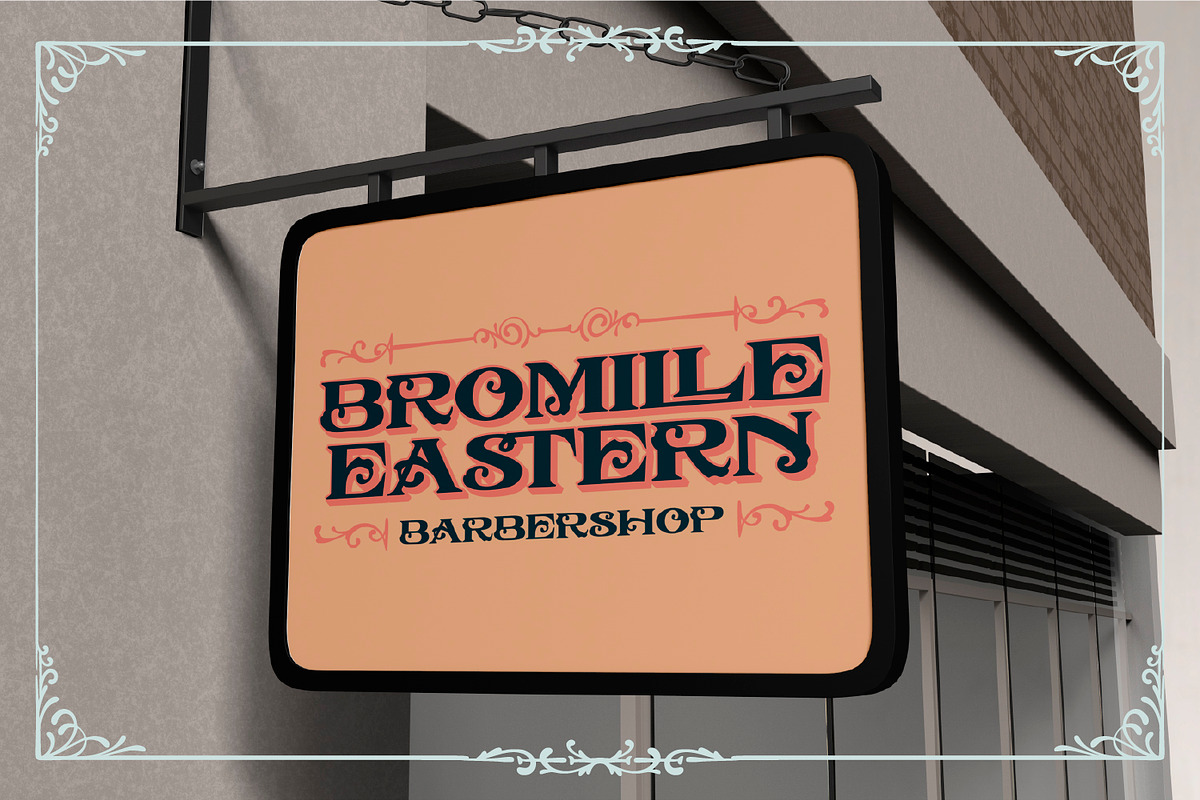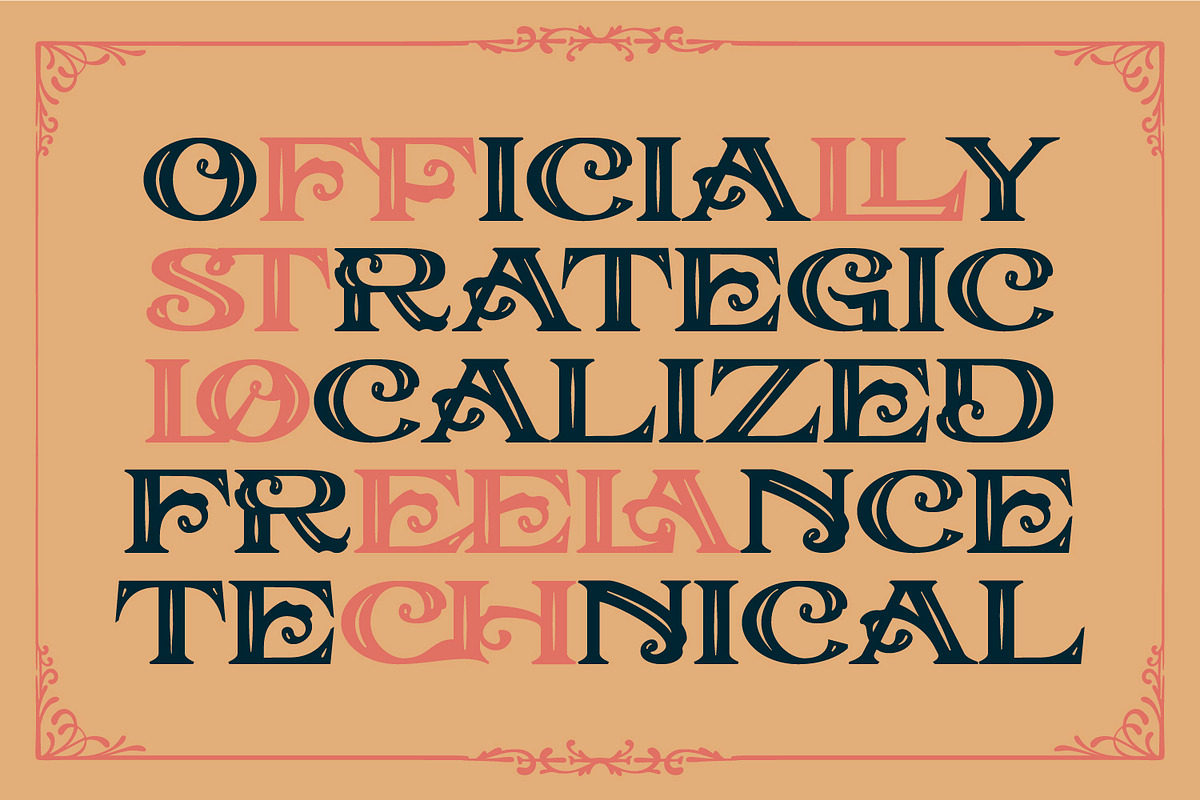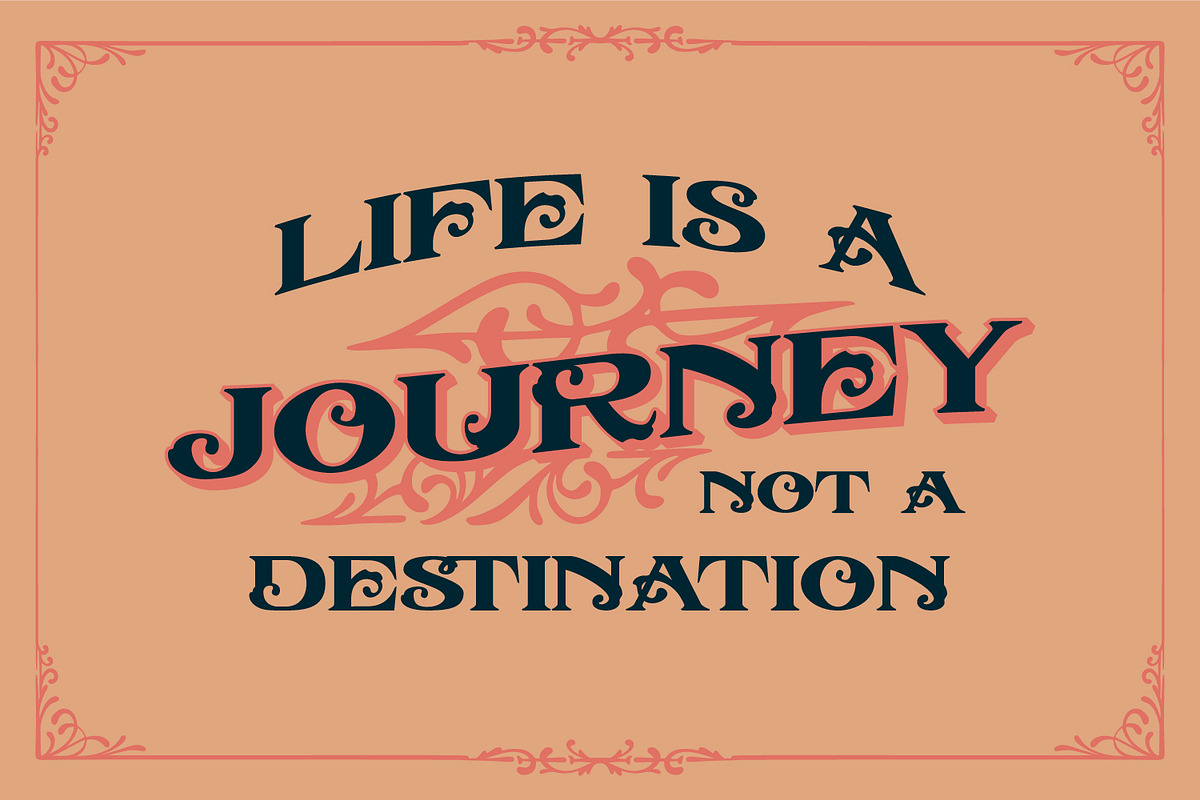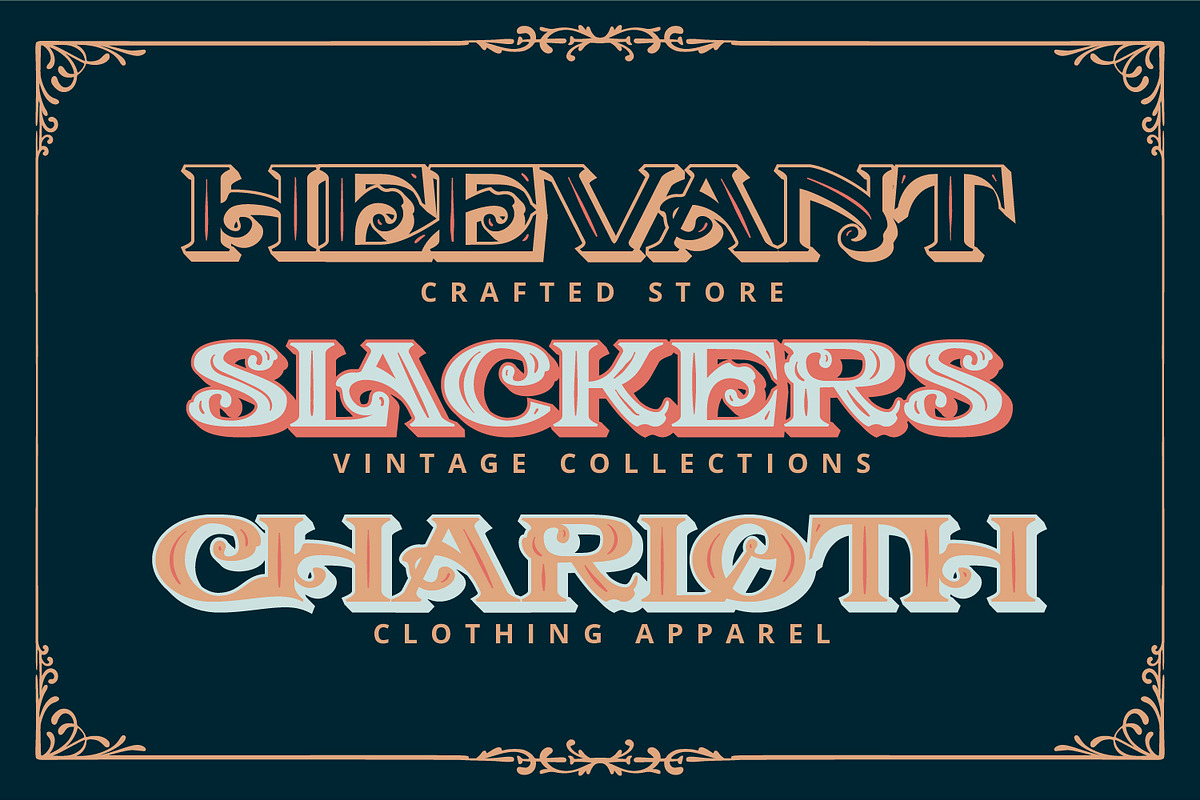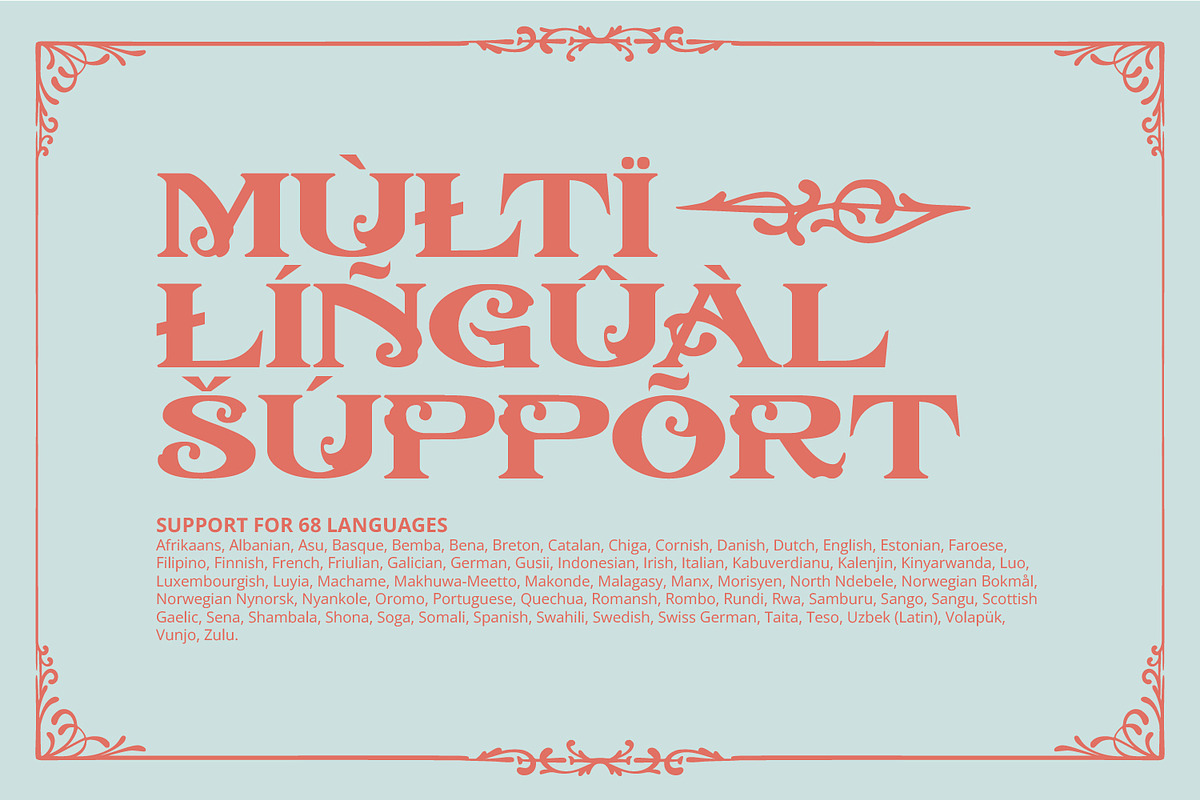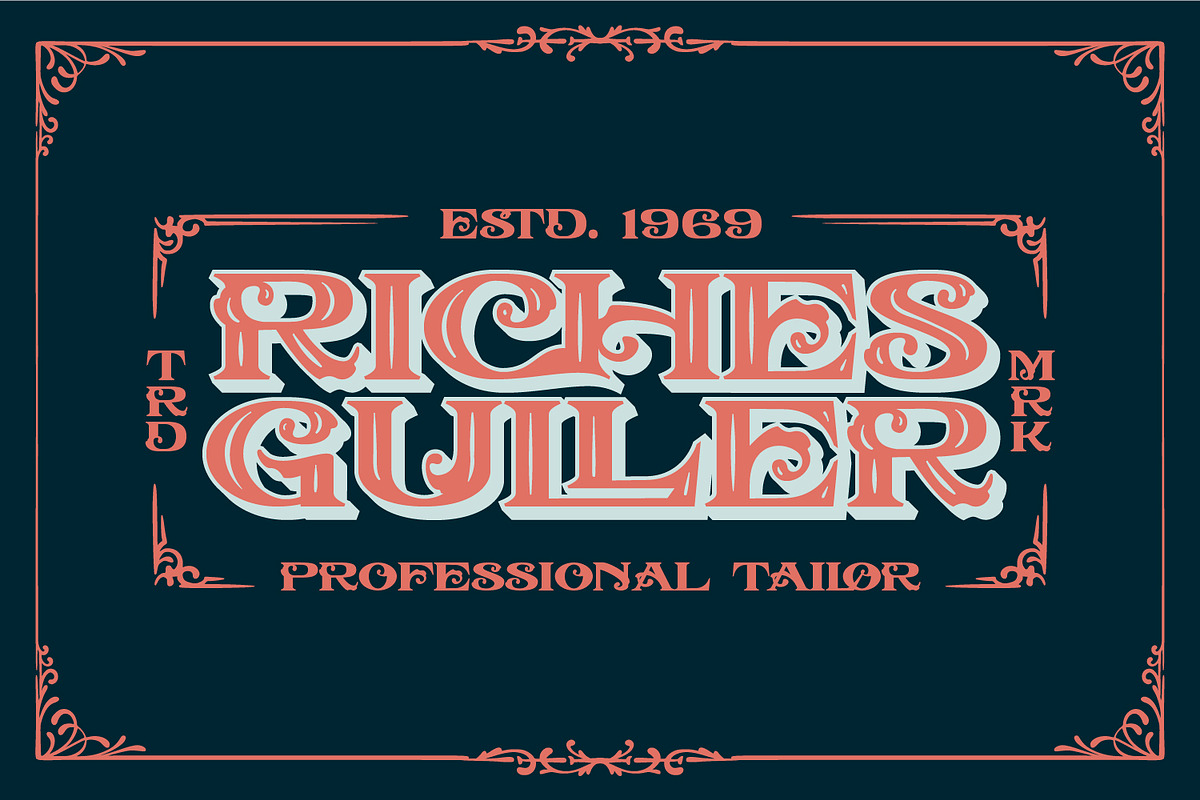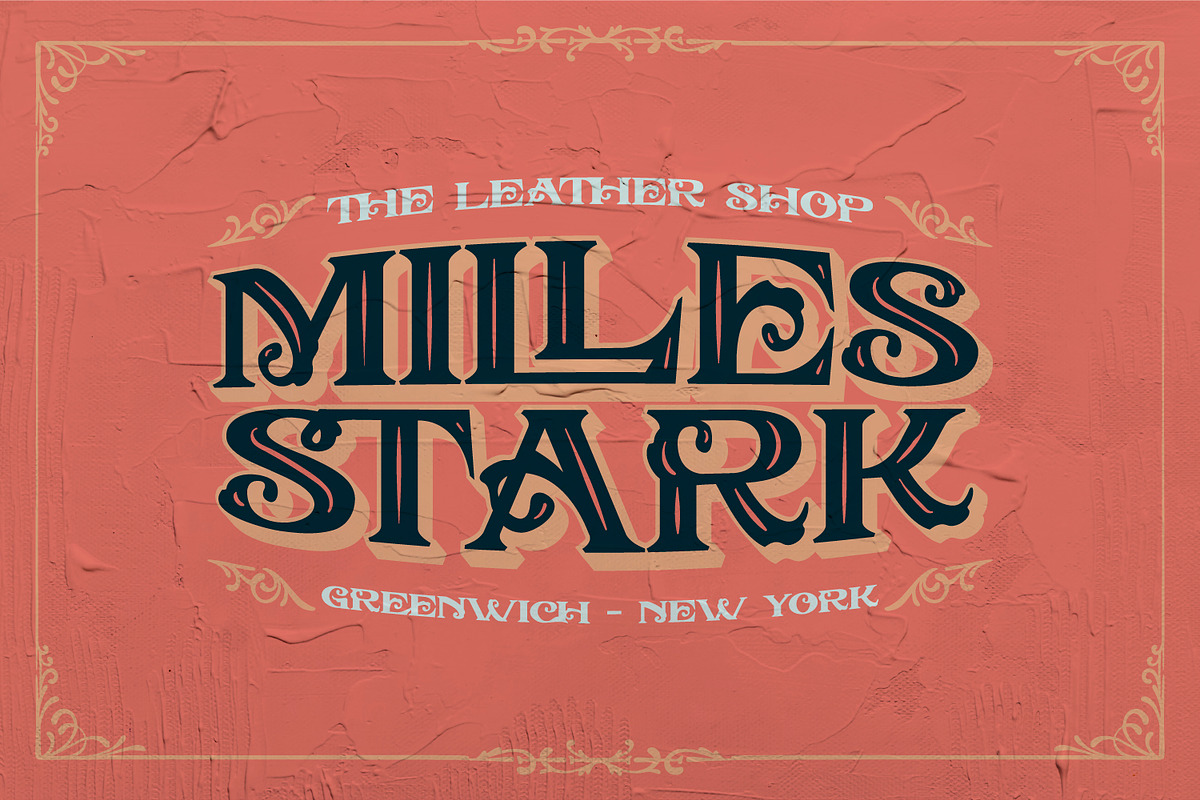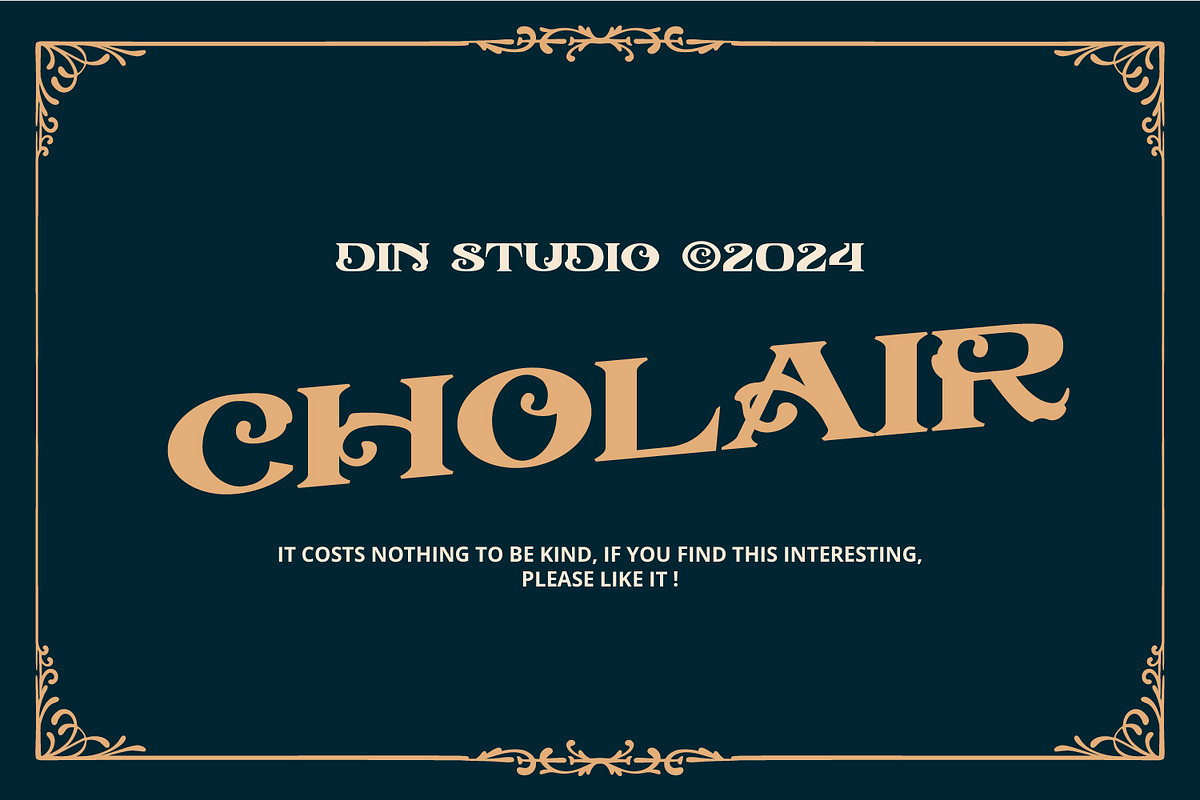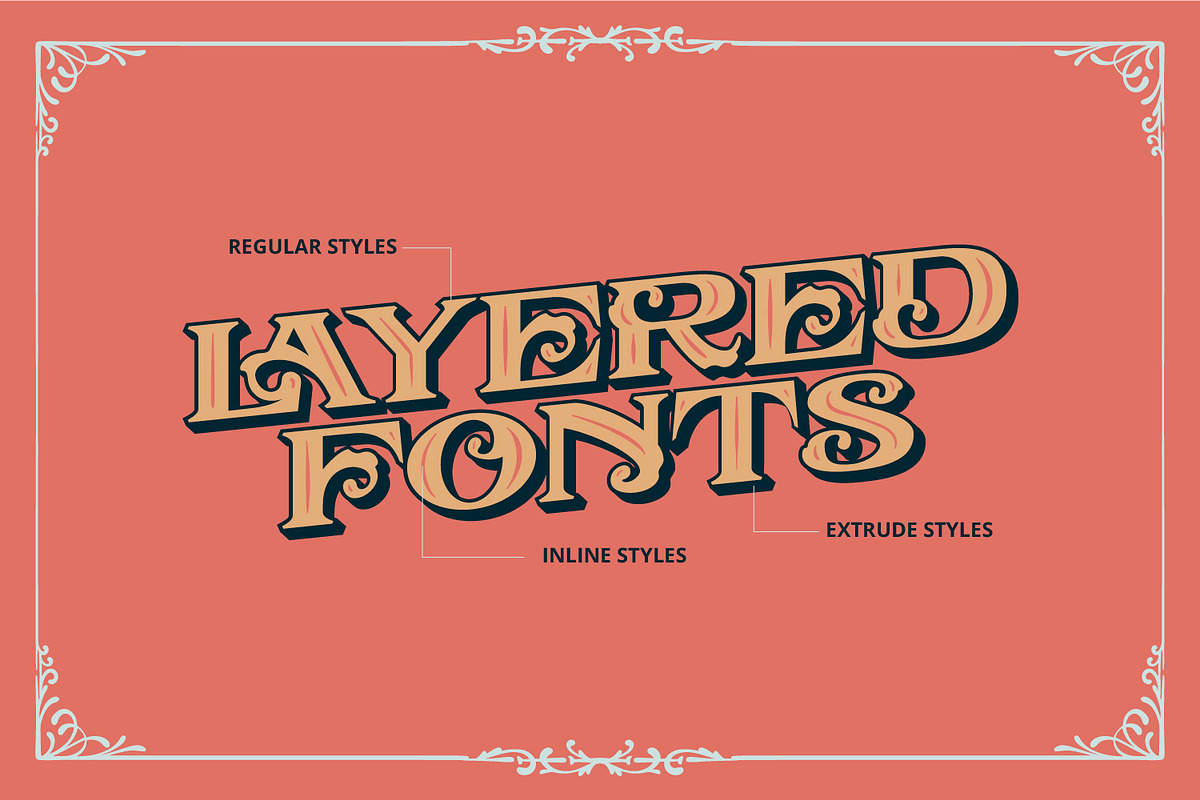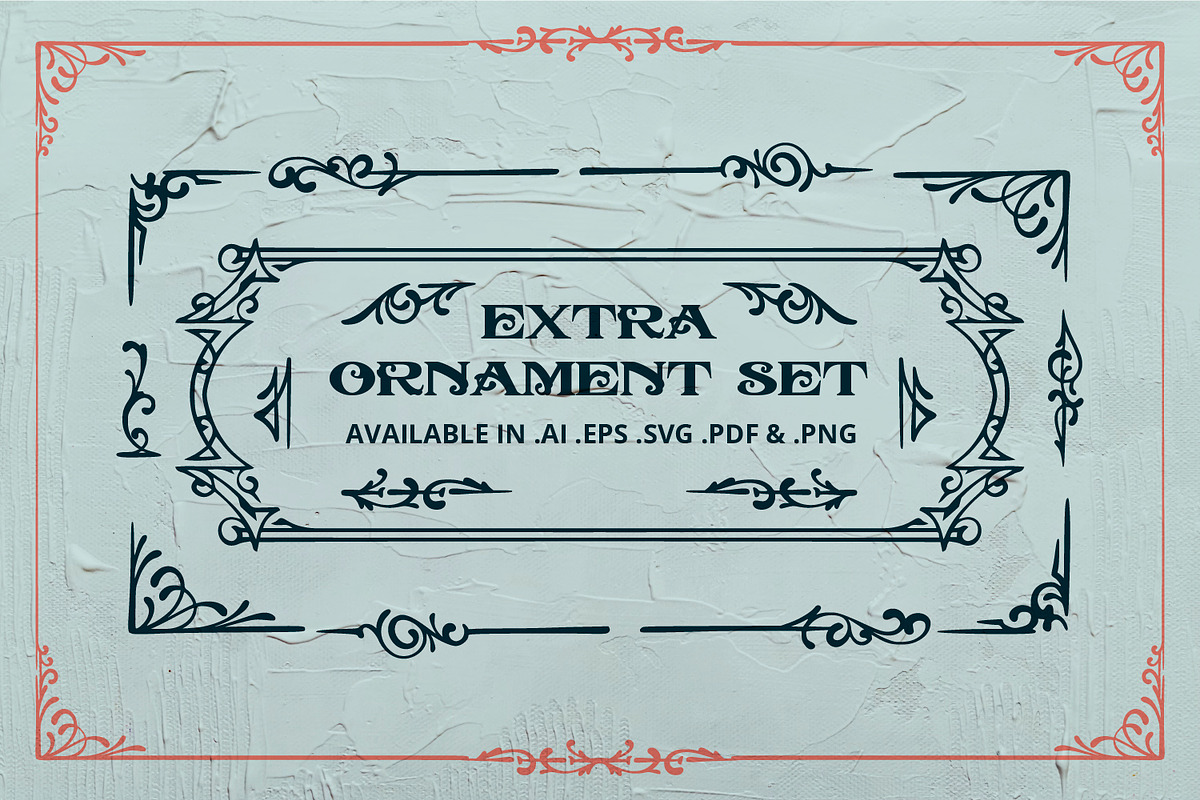
Cholair
Introducing Cholair, a bold and distinctive display font that combines vintage elegance with modern creativity. Designed in all uppercase letters, Cholair designed in a thick weight and unique letter shapes that set it apart from the crowd. With its consistent letter size and eye-catching inline and extrude design, this font brings depth and dimension to any project. Cholair delivers both charm and impact with its timeless vintage style. This font gives ornaments as extra. In addition, enjoy the features here.
Cholair fits in headlines, logos, posters, branding materials, packaging, print media, editorial layouts, and many more designs. Find out more ways to use this font by taking a look at the font preview.